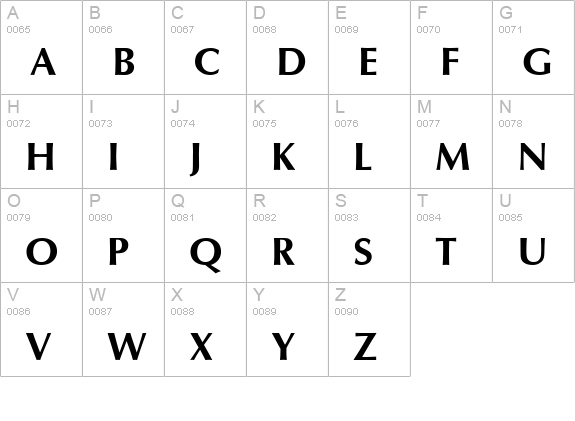
Interface SSi Bold is a strong, high-contrast variant in the Interface typeface family \xE2\x80\x94 well suited to headlines, attention-grabbing titles, and strong calls-to-action.
Interface SSi Bold is a stunning font that effortlessly combines modernity with a touch of sophistication. Its bold and strong letterforms command attention and make a bold statement. This versatile typeface is perfect for a wide range of design projects, whether it's creating eye-catching headlines, designing impactful logos, or crafting engaging social media posts. With its clean lines and crisp edges, Interface SSi Bold exudes professionalism and confidence. Its contemporary aesthetic adds a sleek and polished look to any design, making it an excellent choice for branding projects and corporate materials. The bold weight of this font ensures that your message will be seen and remembered, leaving a lasting impression on your audience. One of the best things about Interface SSi Bold is that it is freely available to download at FontsMarket.com. This means that you can easily access this exceptional font without any cost, making it an incredible opportunity for designers, creatives, and anyone looking to enhance their projects with a high-quality typeface. Whether you're a seasoned professional or a beginner in the design world, Interface SSi Bold is an excellent addition to your font library. Its versatility, boldness, and modern appeal make it a go-to choice for a wide range of design applications. So why wait? Head over to FontsMarket.com and download Interface SSi Bold for free, and elevate your designs to new heights.